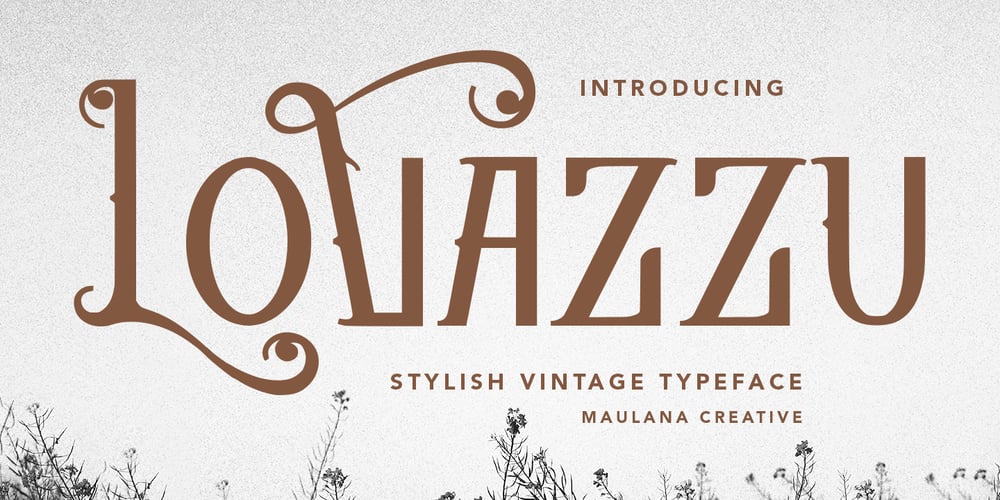
MC Lovazzu Font Family was designed by Gilang Maulana and published by Maulana Creative. MC Lovazzu contains 1 styles and family package options. Lovazzu stylish vintage typeface font. With bold stroke, fun character with a bit of ligatures and alternates. To give you an extra creative work. Lovazzu font support multilingual more than 100+ language. This font is good for logo design, Social media, Movie Titles, Books Titles, a short text even a long text letter and good for your secondary text font with sans or serif. Make a stunning work with Lovazzu font.Cheers,Maulana Creative